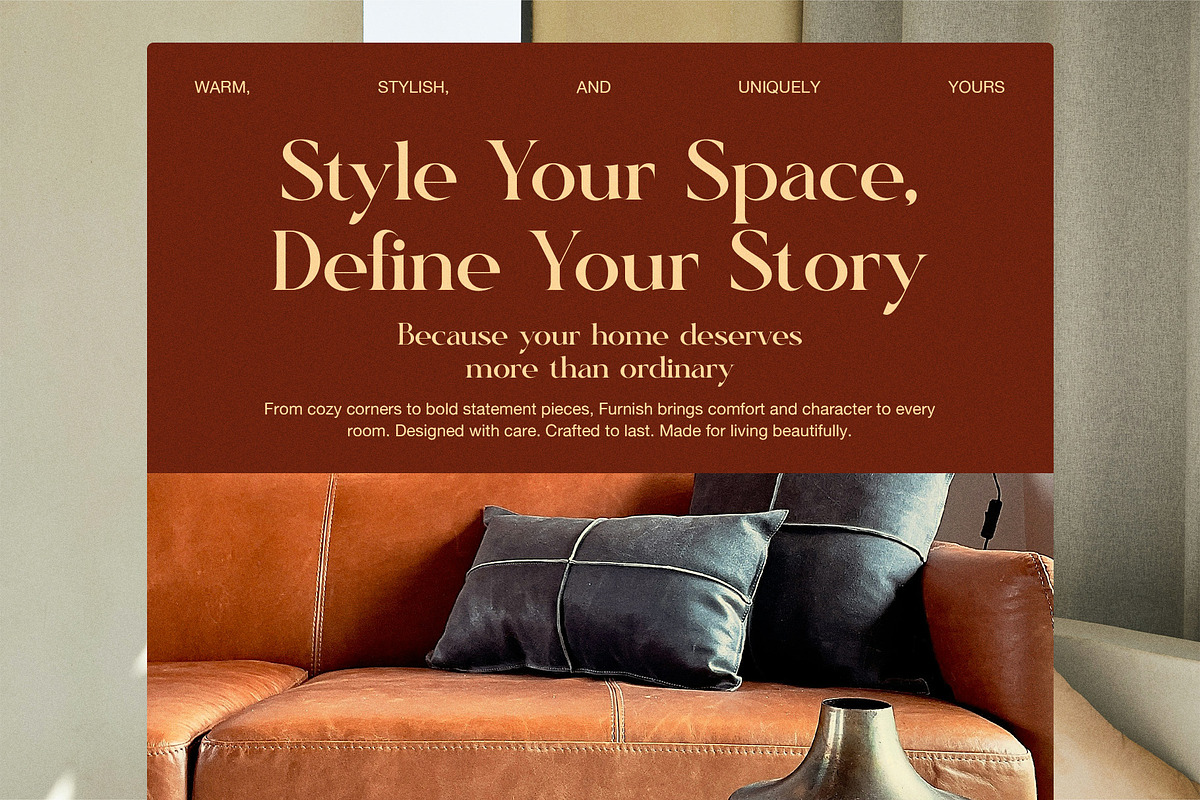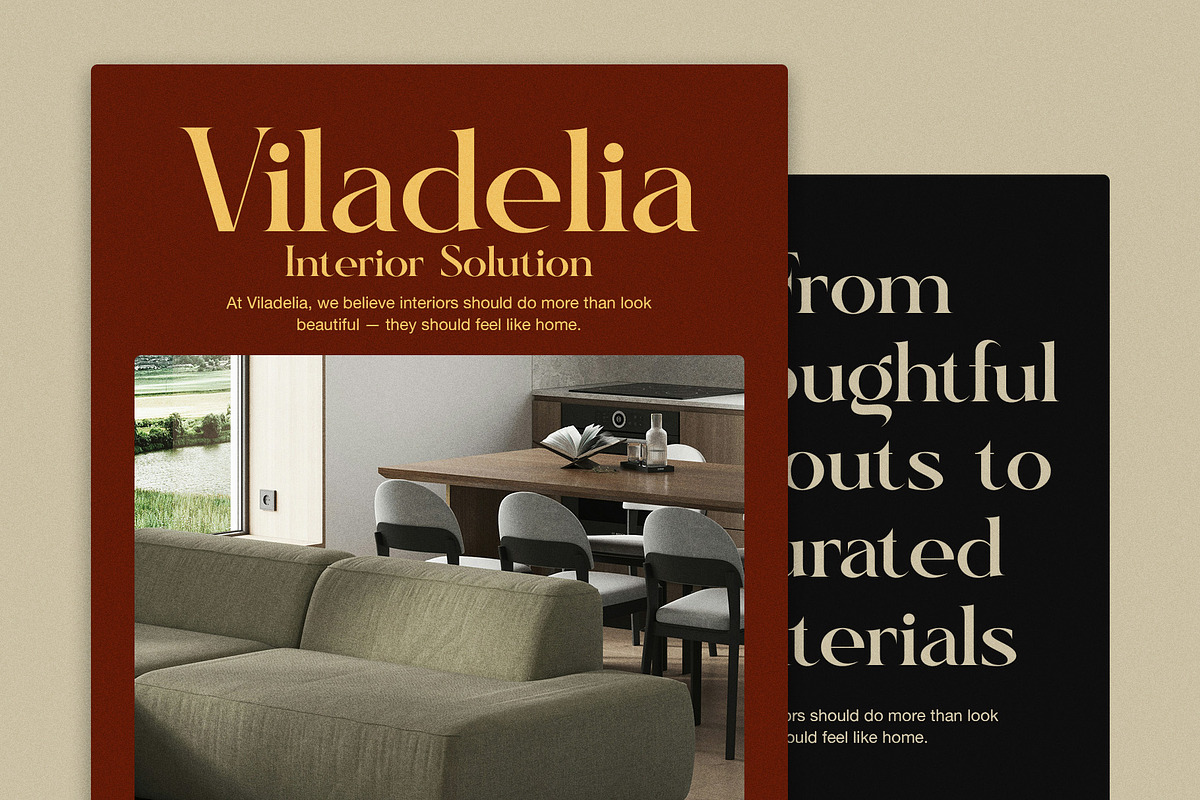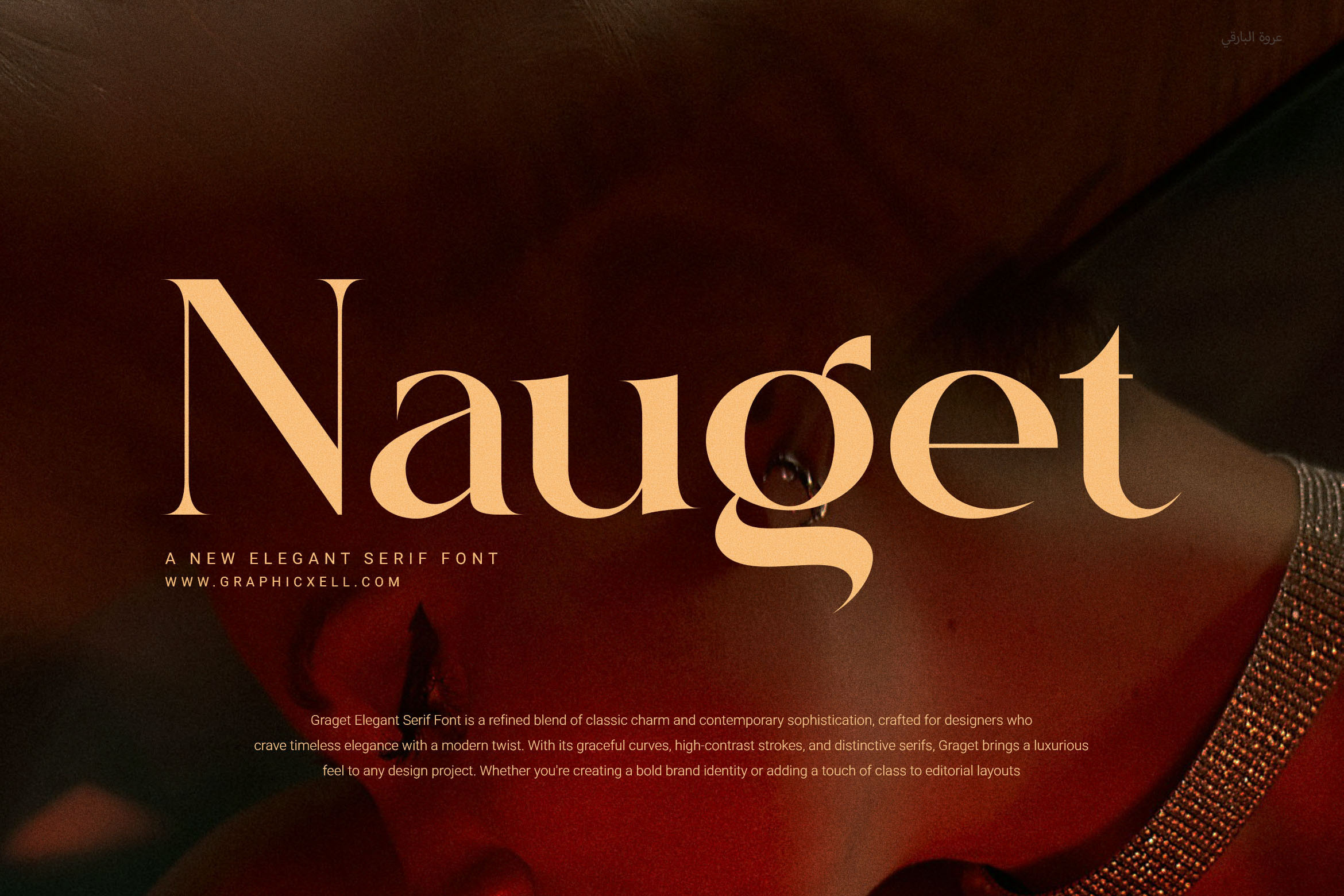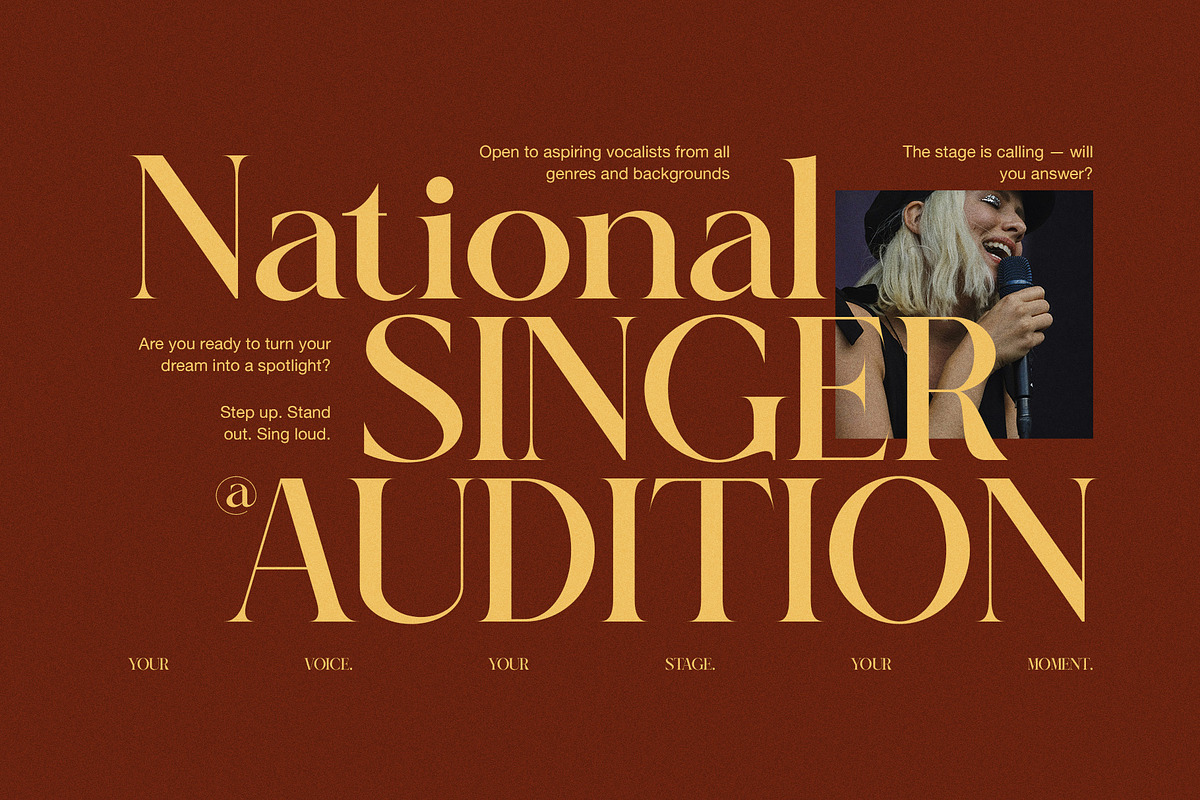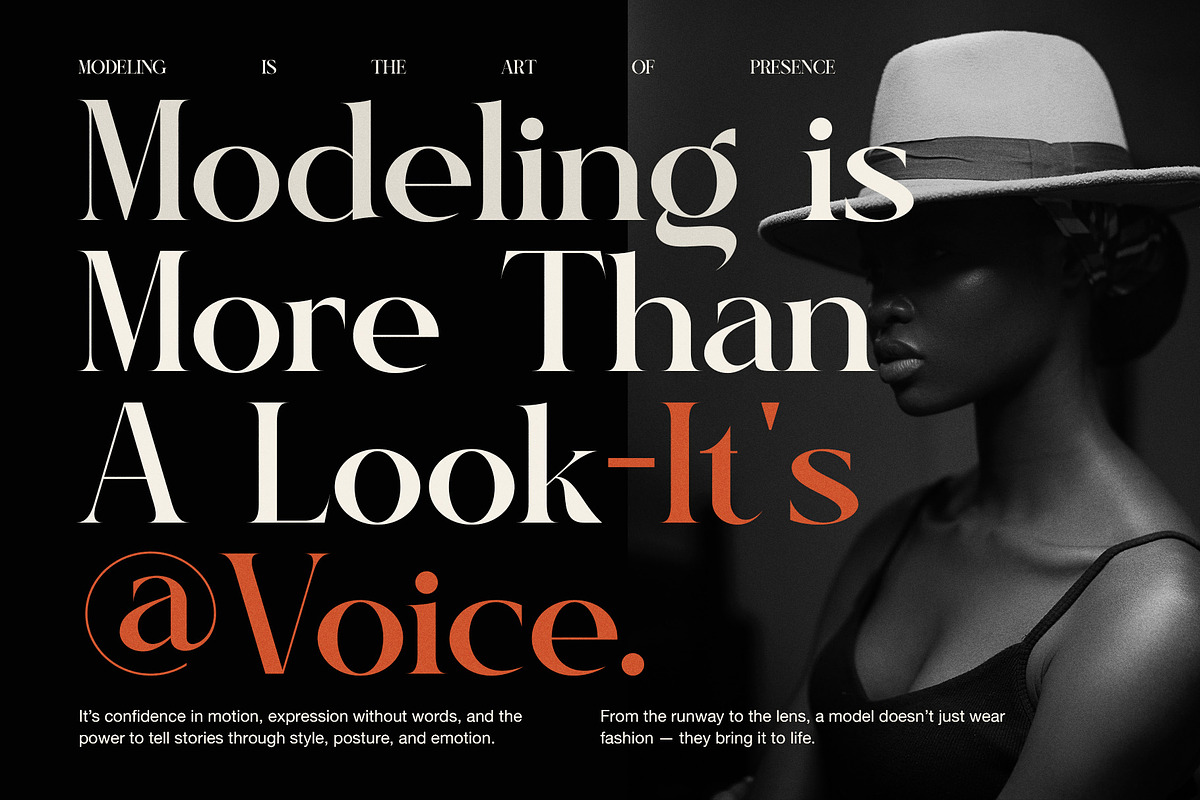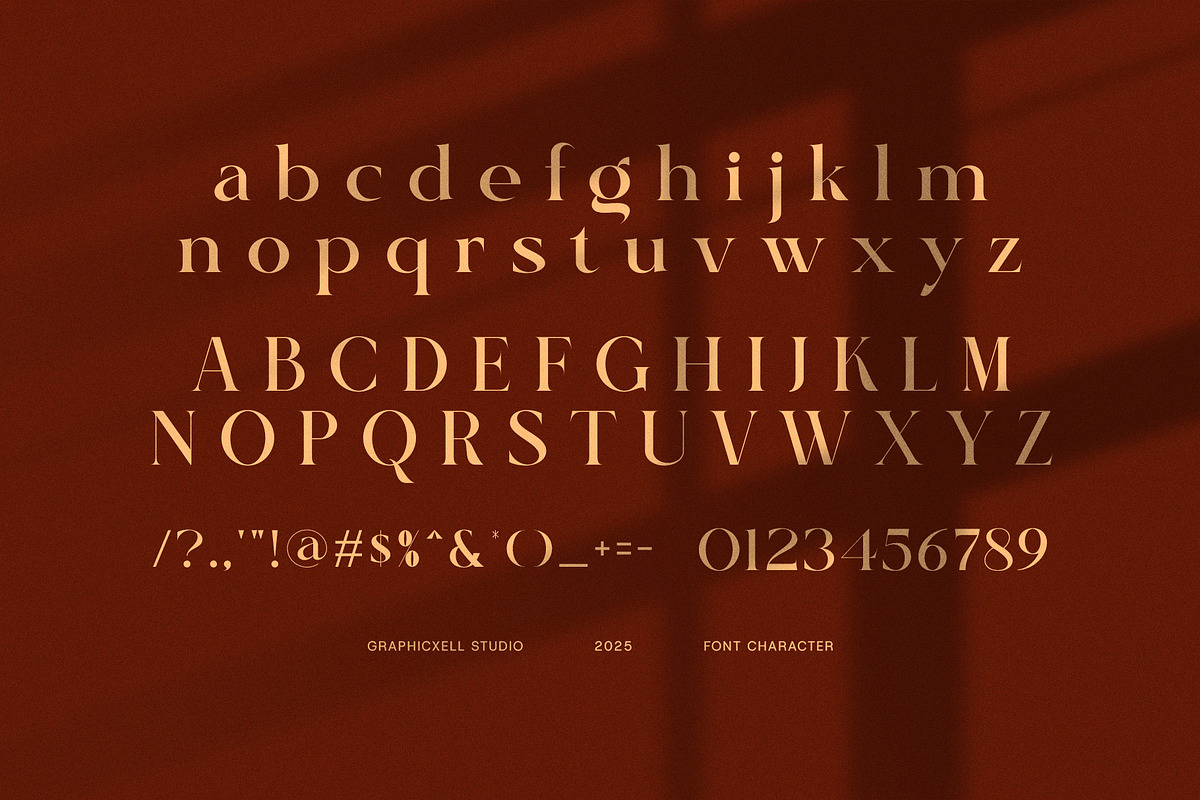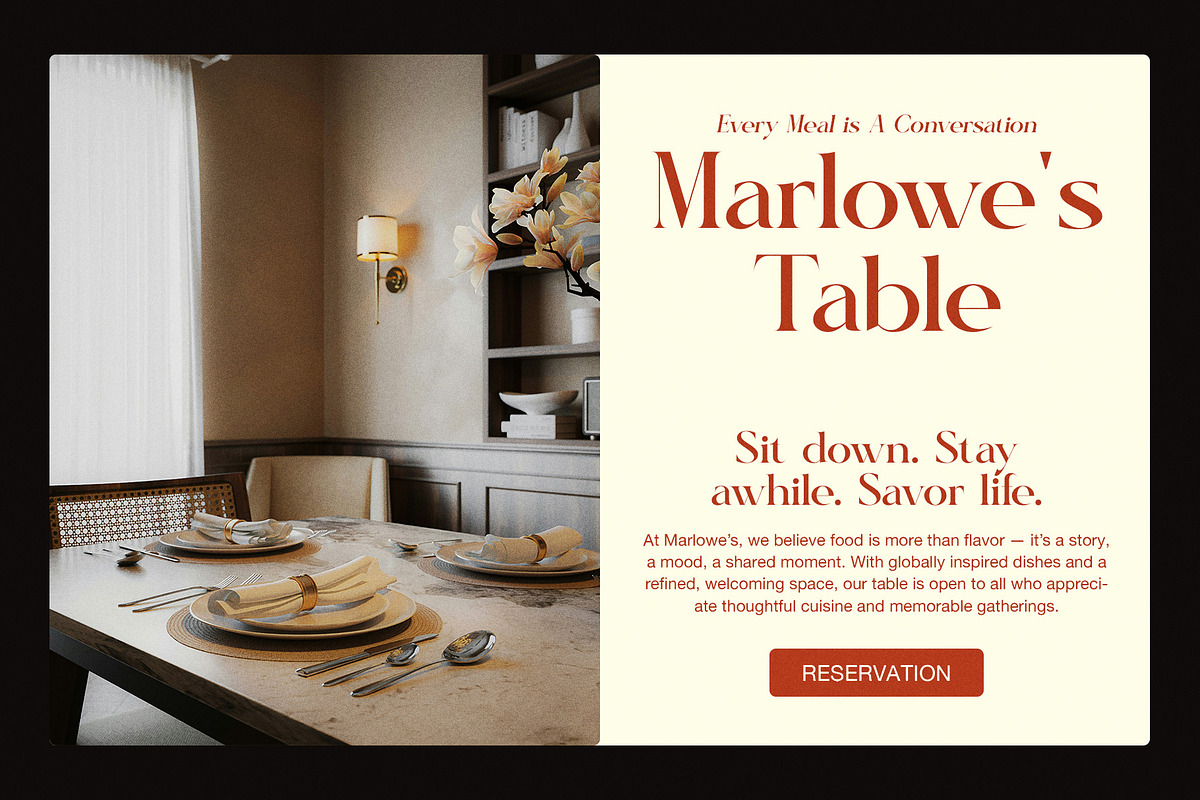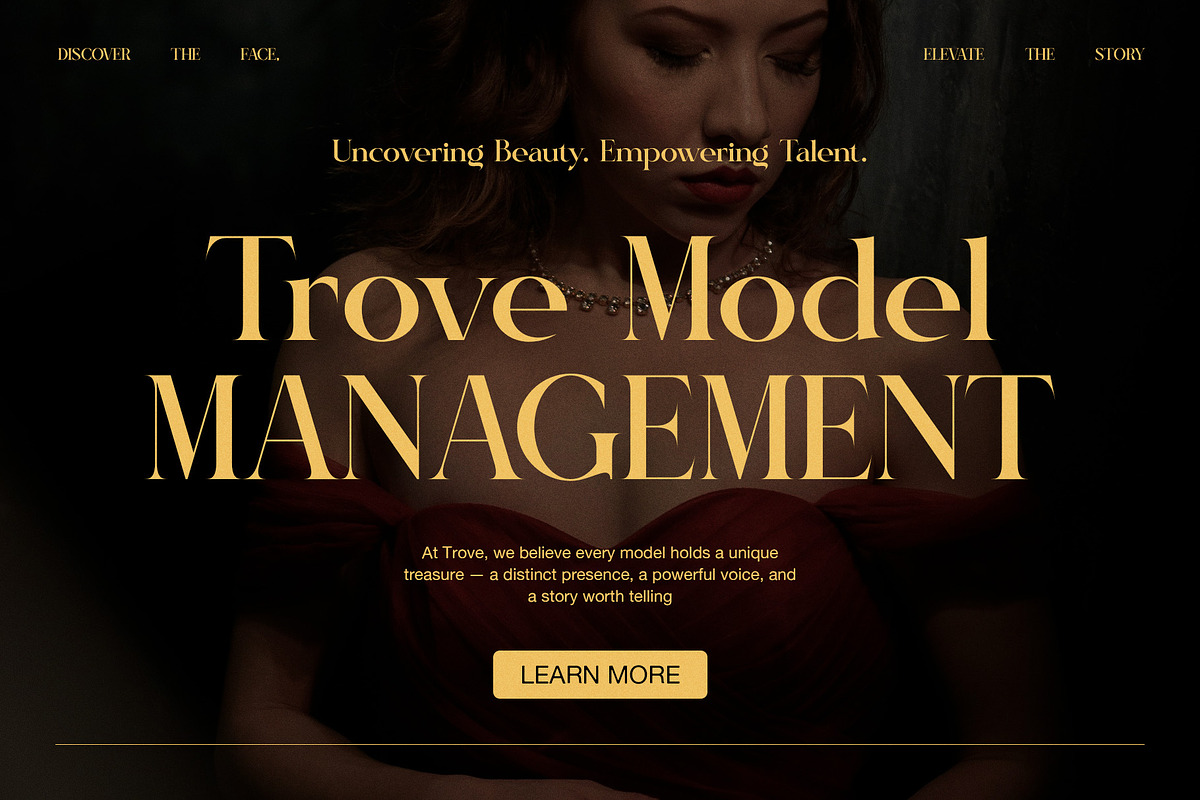
Nauget Elegant Serif Font
✨ Nauget Elegant Serif Font – Simple, Stylish, and Perfect for Modern Branding
Nauget Elegant Serif Font is a clean and stylish serif font made for modern design needs. It brings together classic shapes and smooth lines to give your work a polished and professional feel. With its simple yet elegant design, Nauget is a great choice for both print and digital use.
This font has a clear structure and neat proportions. It also includes creative ligatures that make your text look more natural and well-designed. Whether you’re working on a logo, website, or magazine layout, this font adds just the right touch of class.
Because Nauget is easy to use and looks great in many styles, it fits a wide range of design needs. It’s bold enough for titles, yet clean enough for longer text.
Luxury logos and branding projects
Fashion, beauty, or boutique packaging
Website banners and headings
Editorial design for magazines or blogs
Product labels and taglines
Wedding invitations or event stationery
Social media graphics with a high-end look
Nauget is a smart choice if you want a font that feels both modern and timeless. Its ligatures help your text flow smoothly, while the balanced letters keep your layout looking sharp.
Use it to bring elegance and clarity to every design.